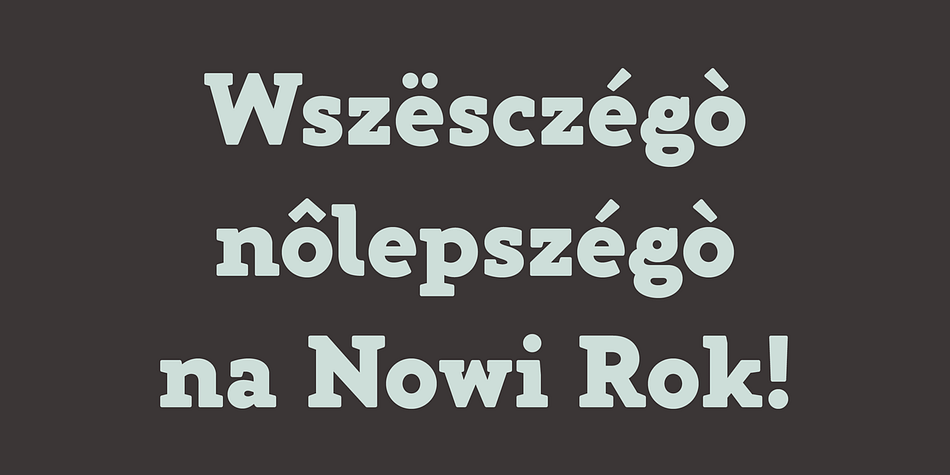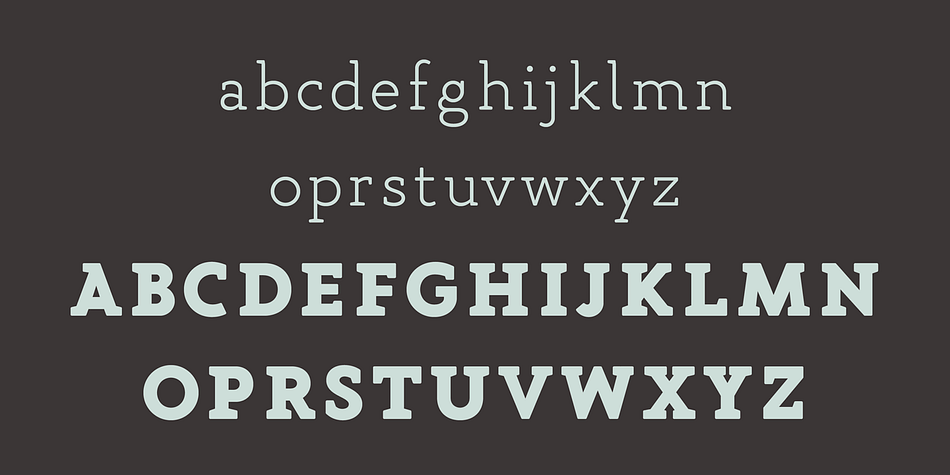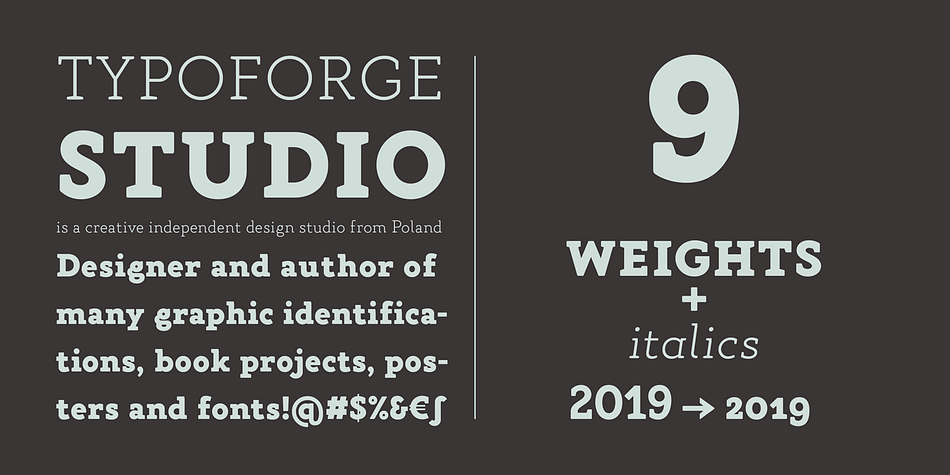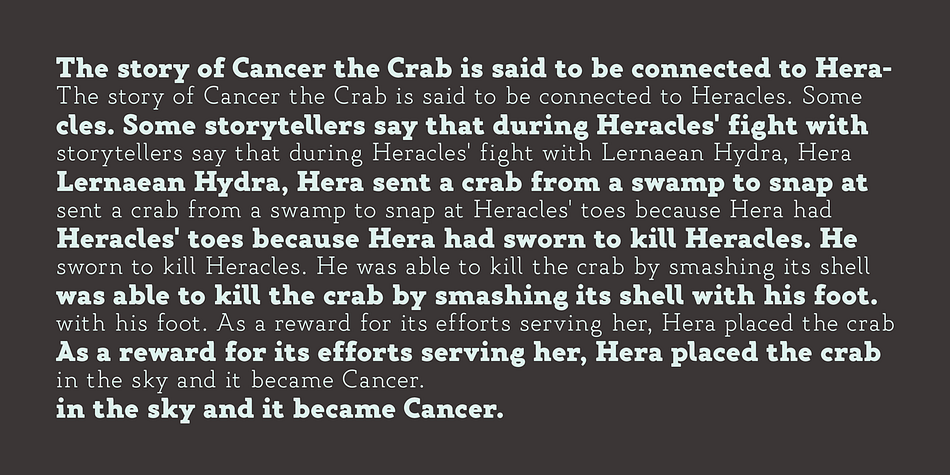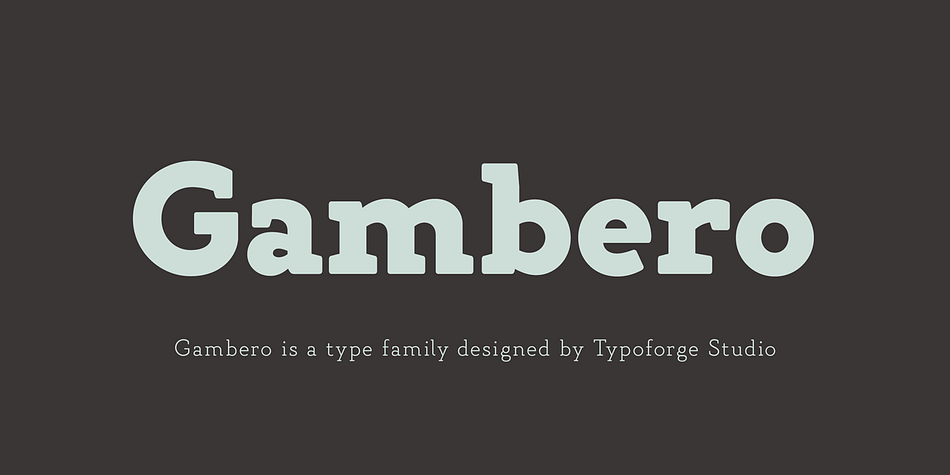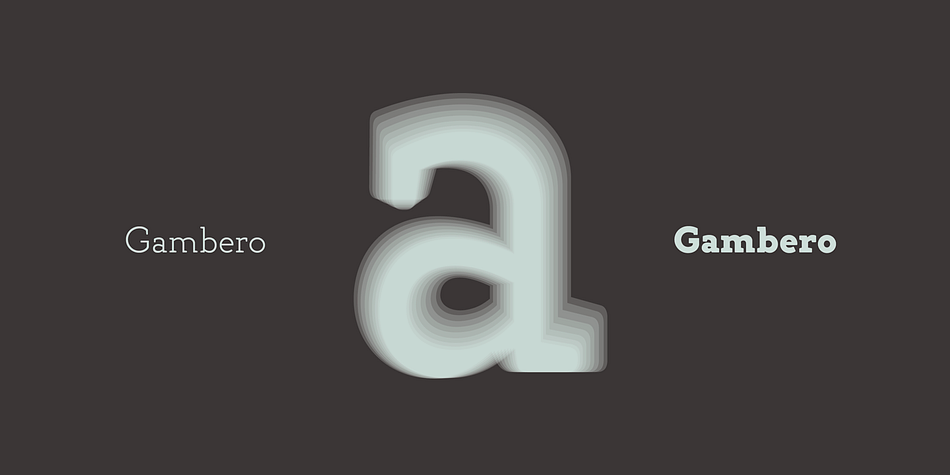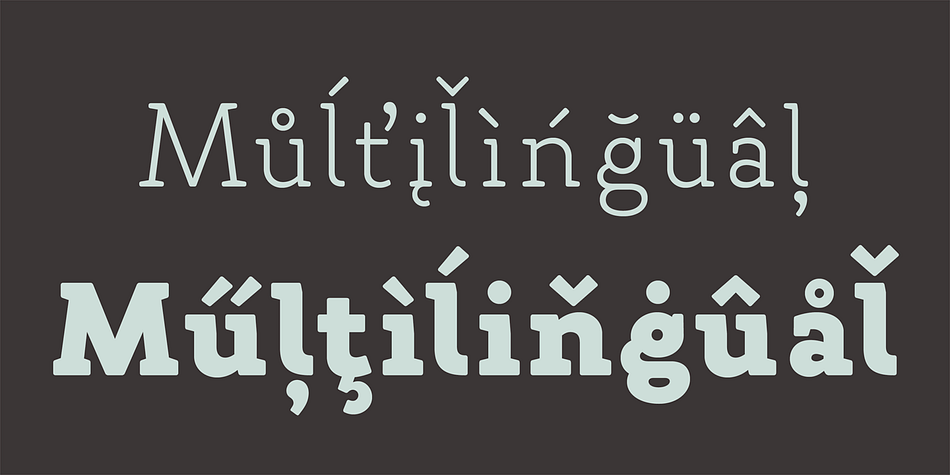
Gambero is a slab serif font family. This typeface has eighteen styles and was published by Typoforge Studio.
Say hi to new member of Typoforge zoo! Gambero family consists of 18 styles (including italics) with a subtle rounded finished details. Gambero is a stable, slab cousin of Kapra, Kapra Neue and Kapra Neue Pro. It is ideally suited for advertising, editorial and publishing, offering new design potential.
Font Gambero is inspired by a “You And Me Monthly” published by National Magazines Publisher RSW „Prasa” that appeared from Mai 1960 till December 1973 in Poland.